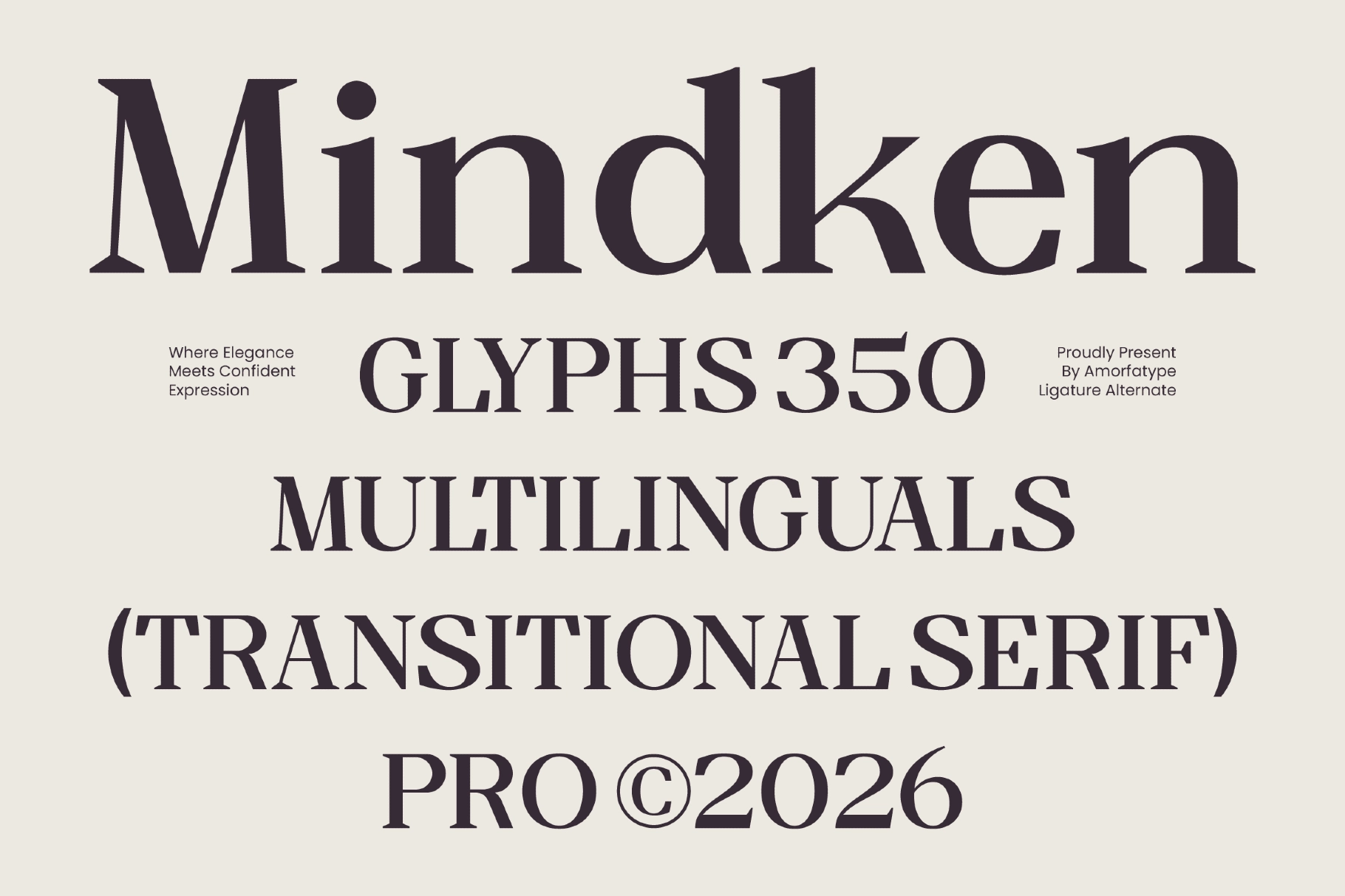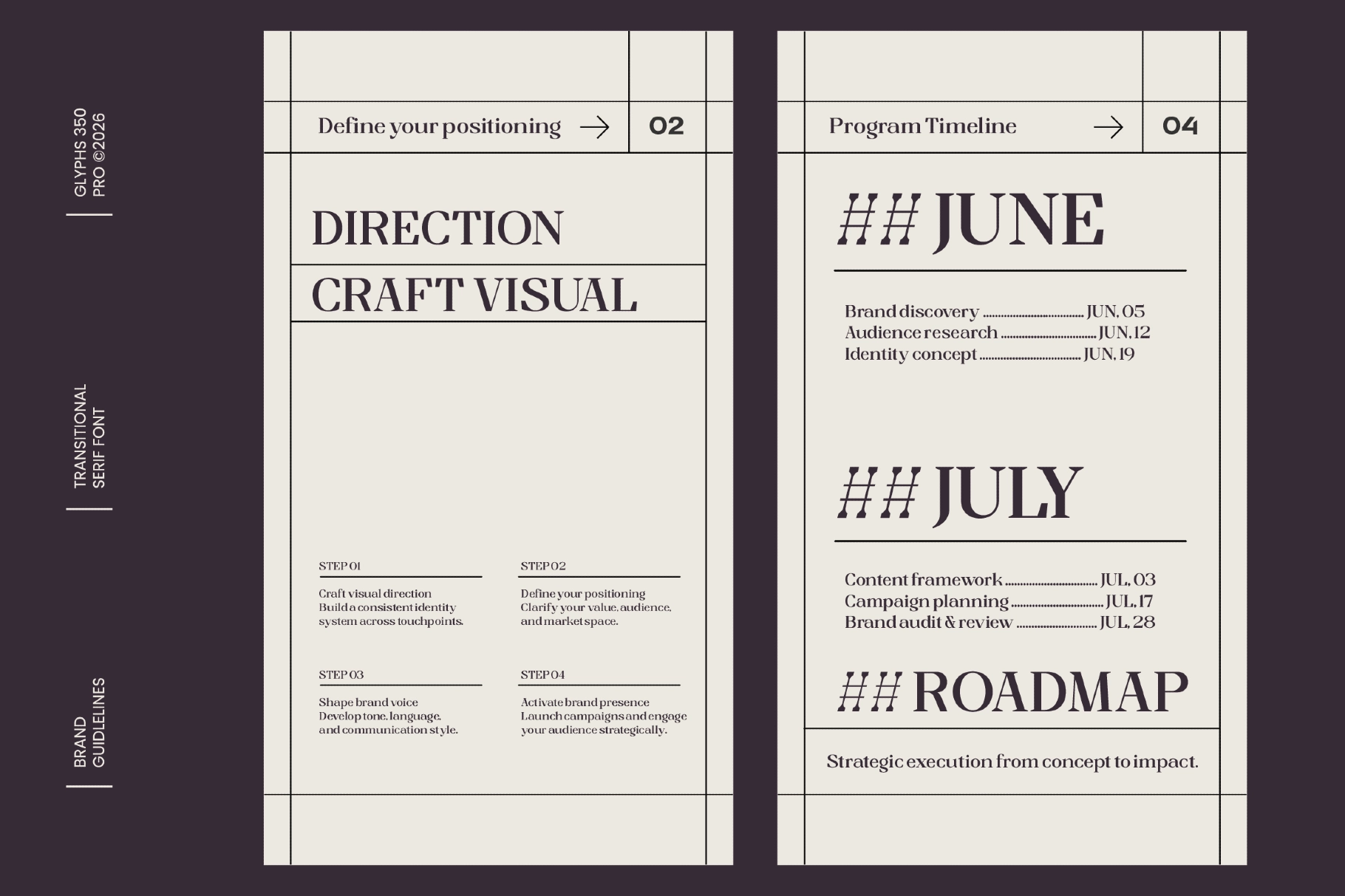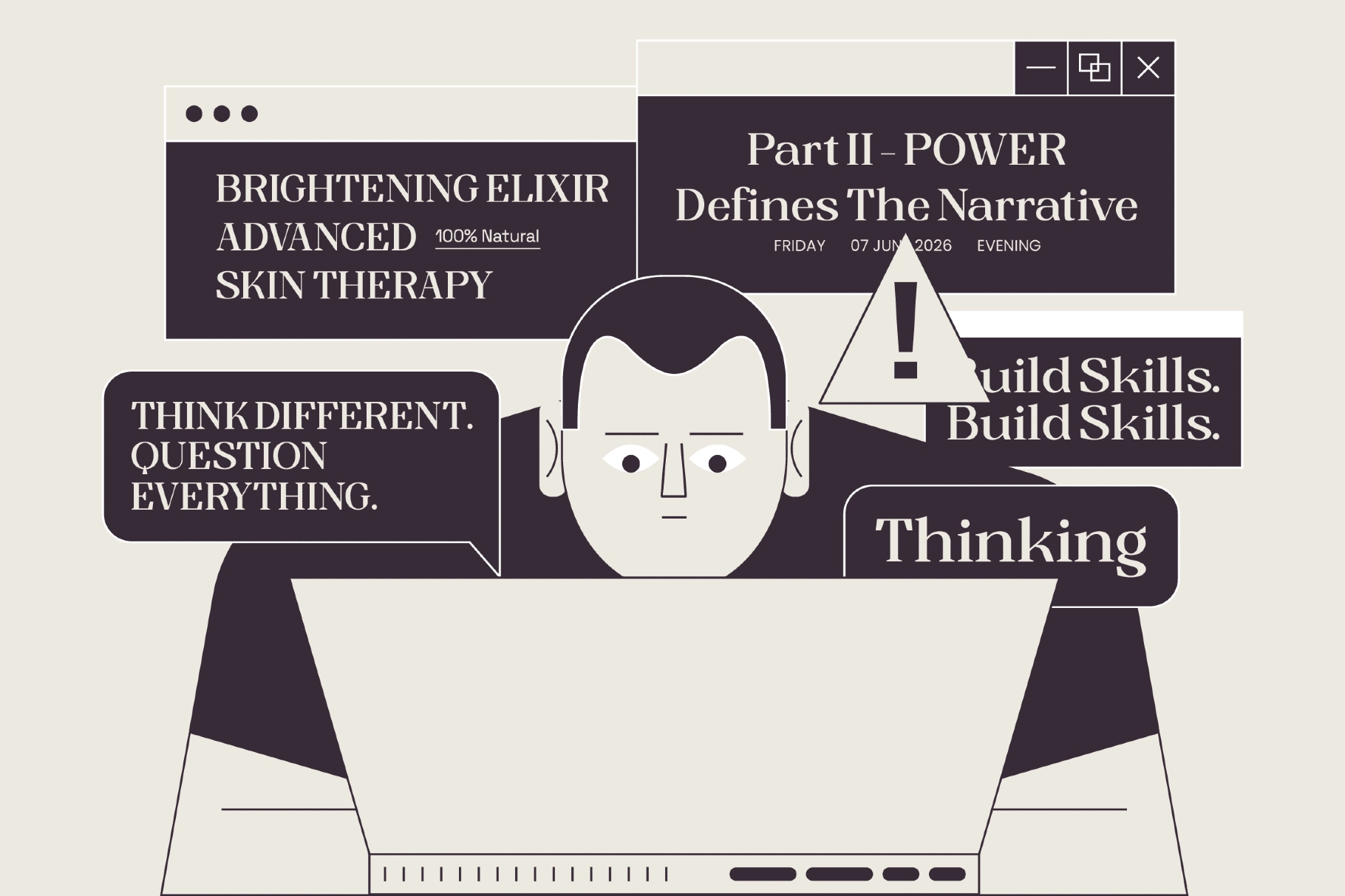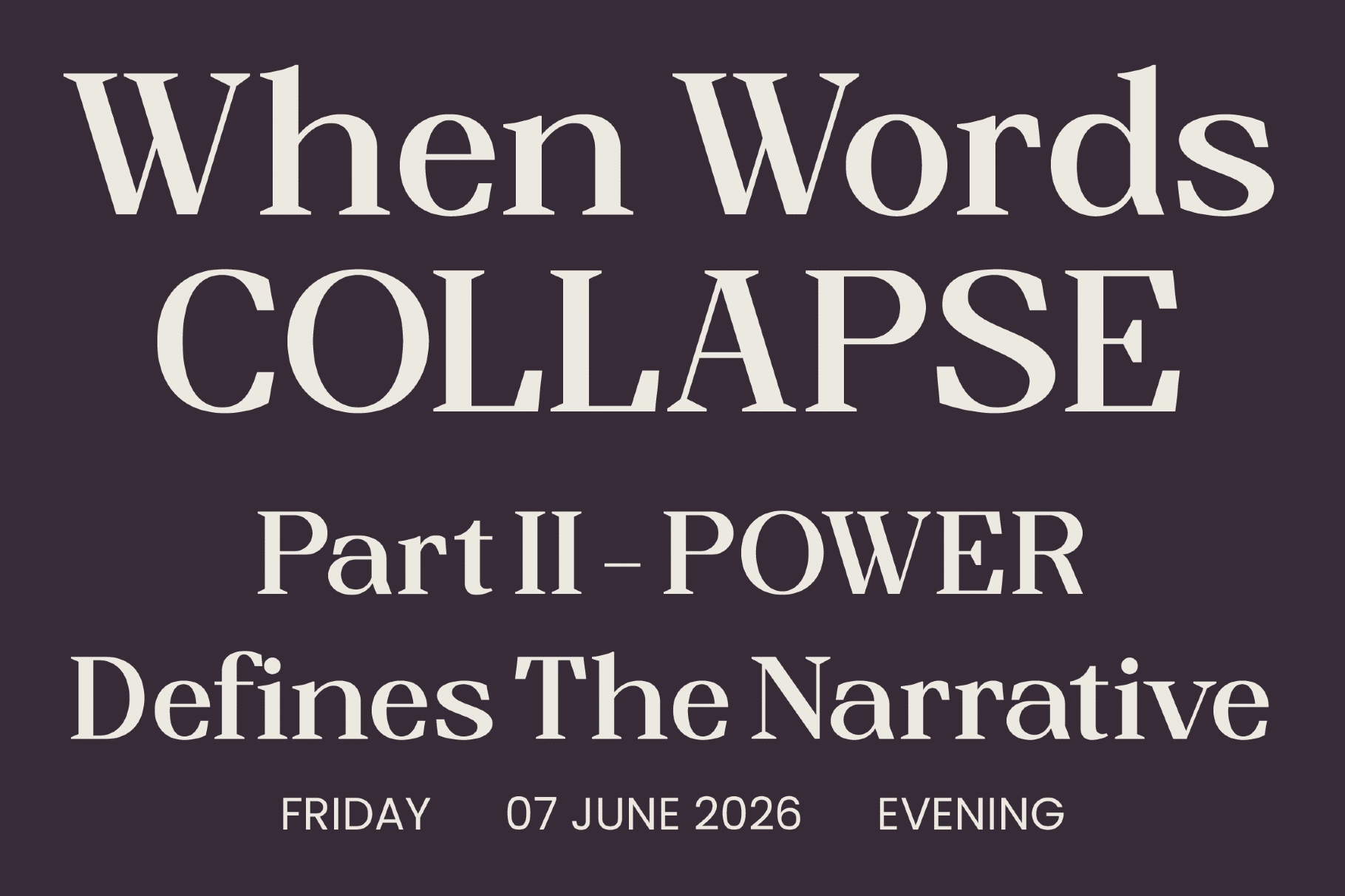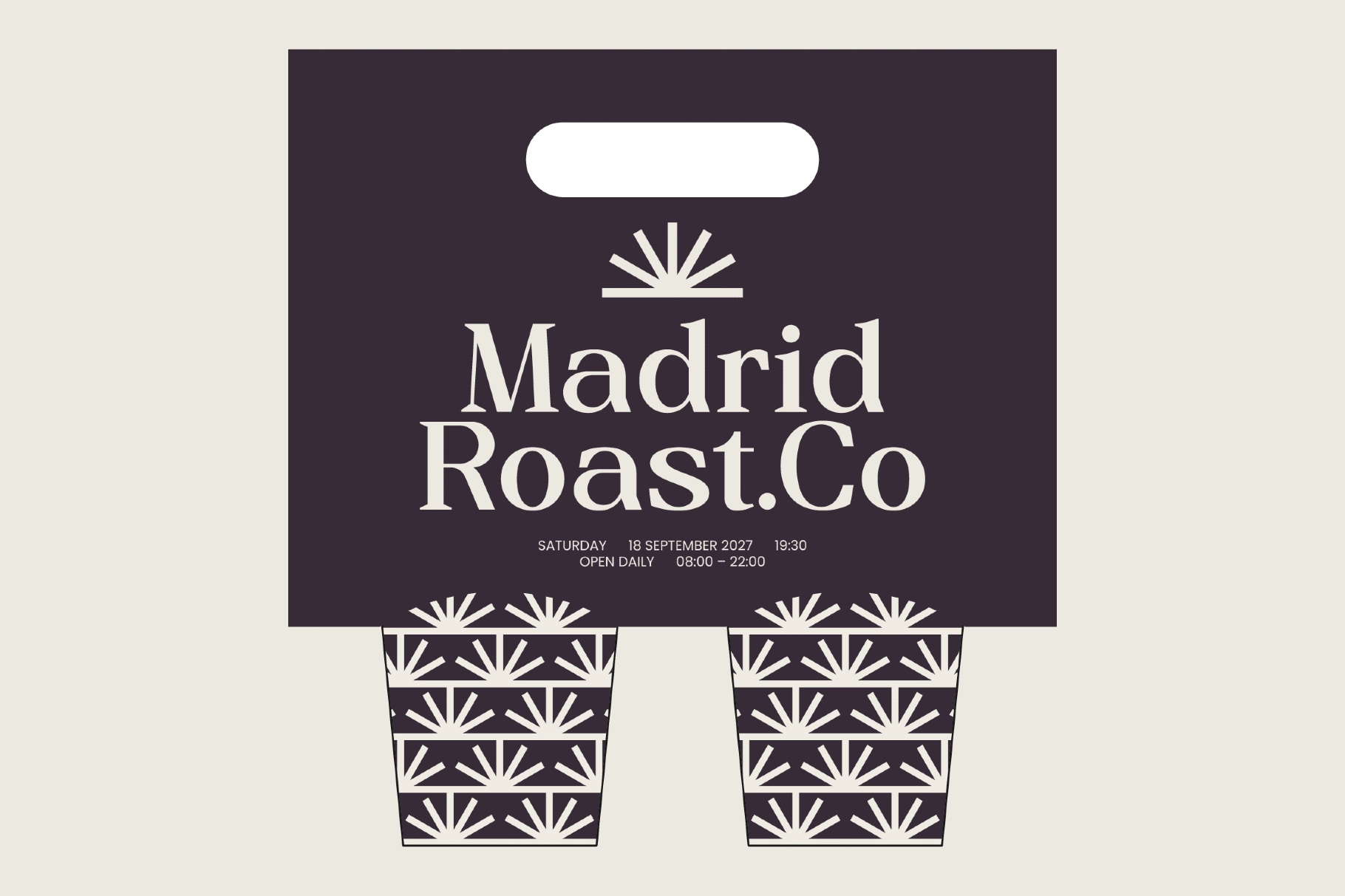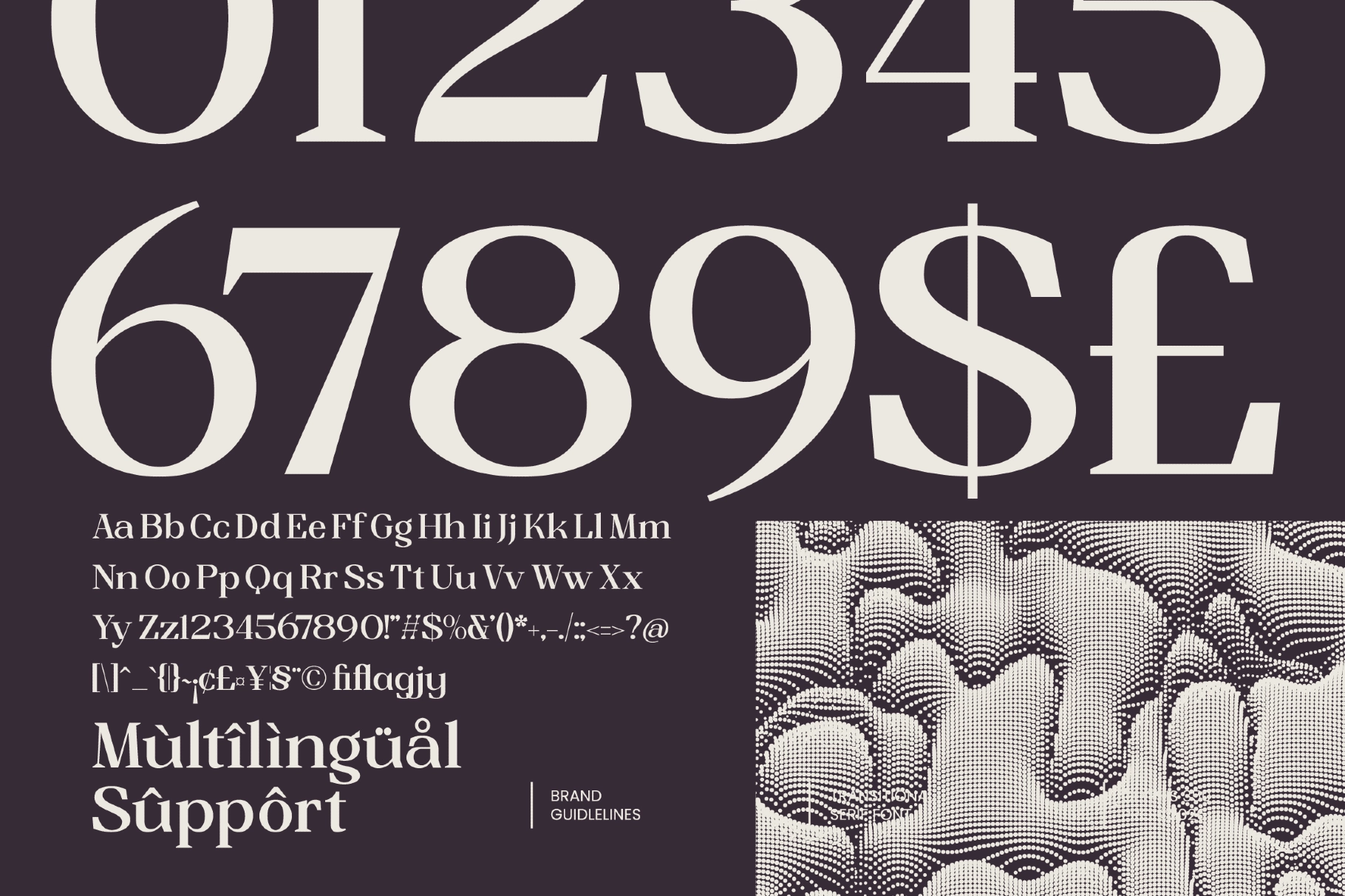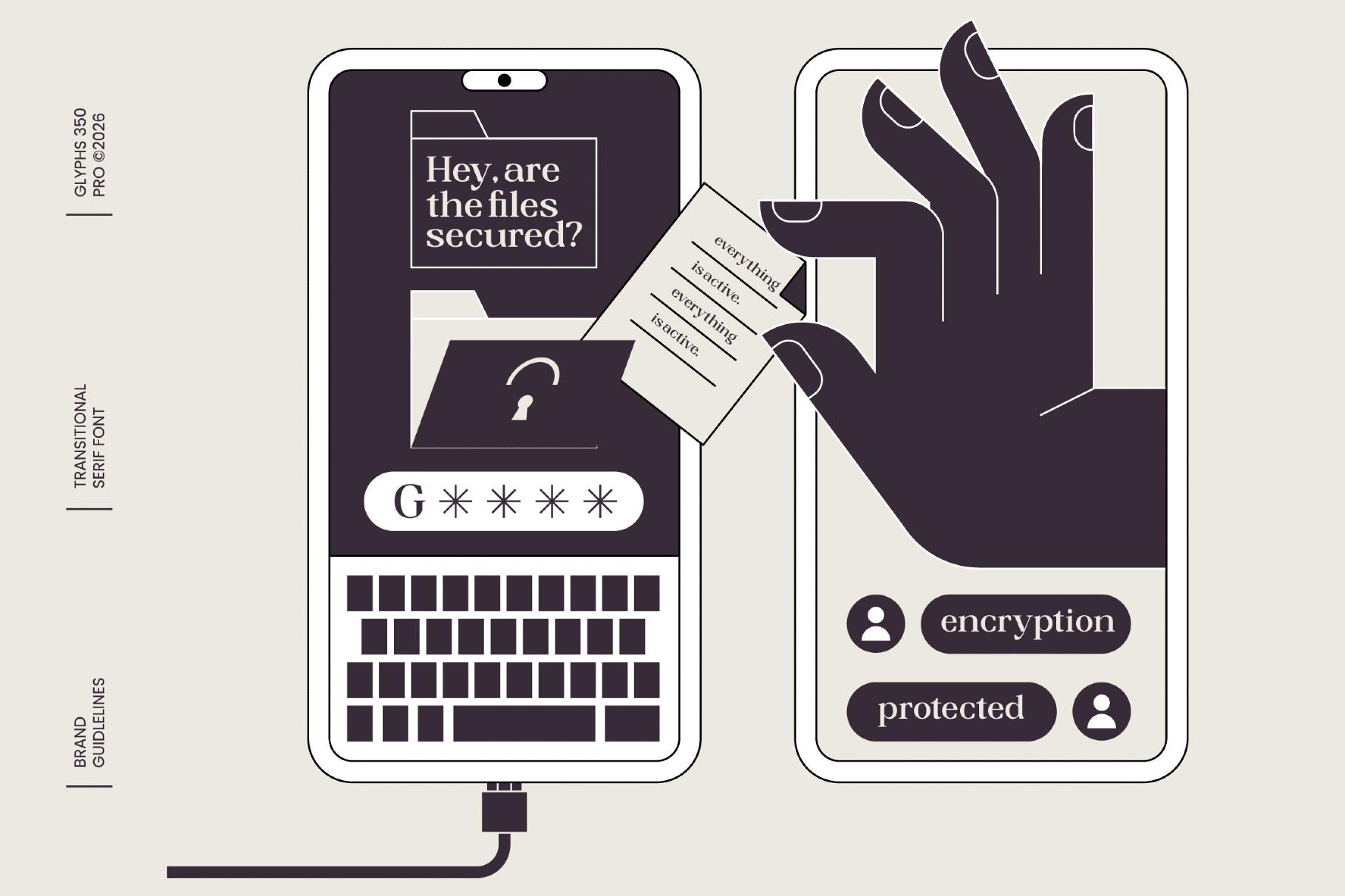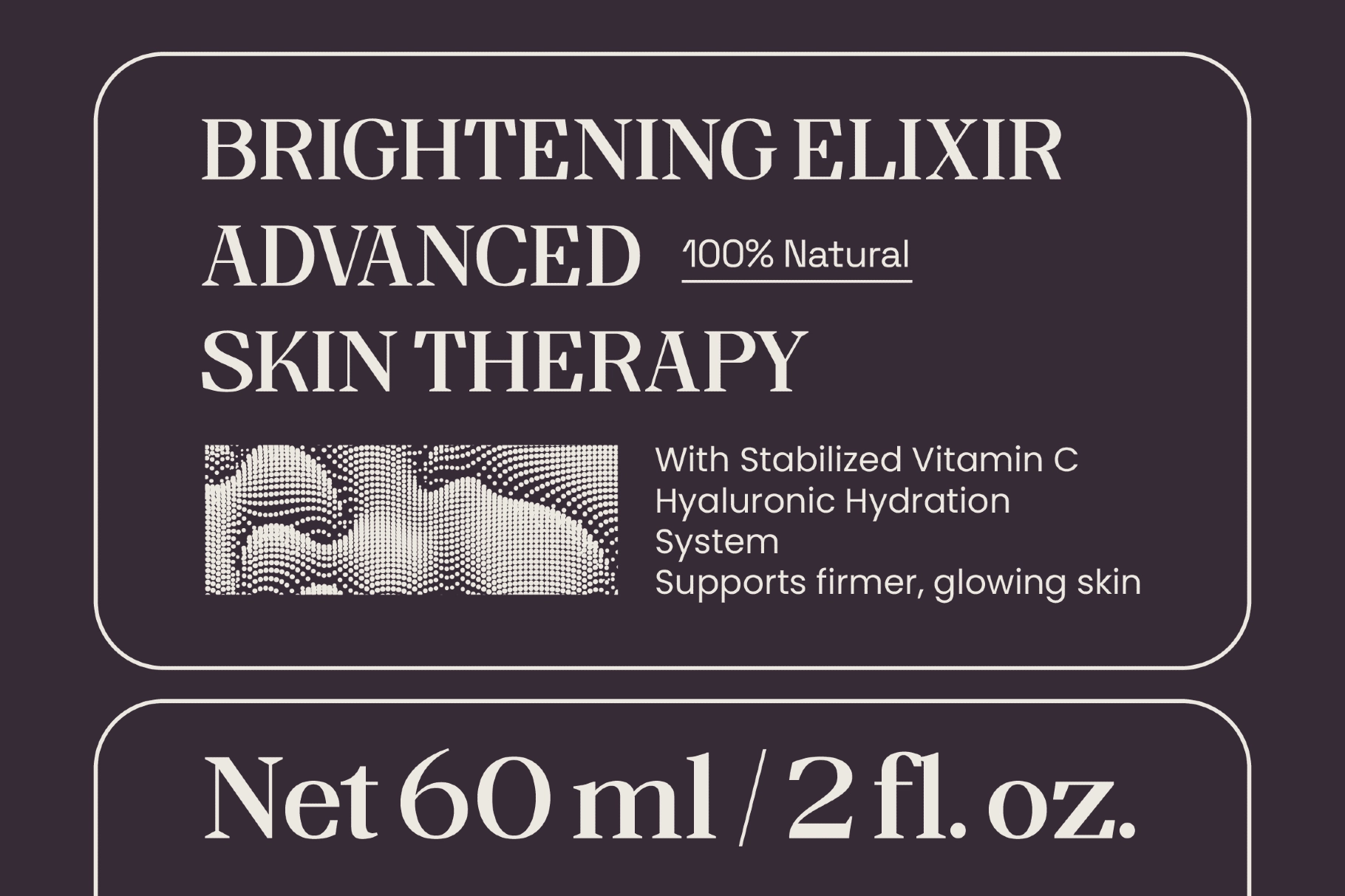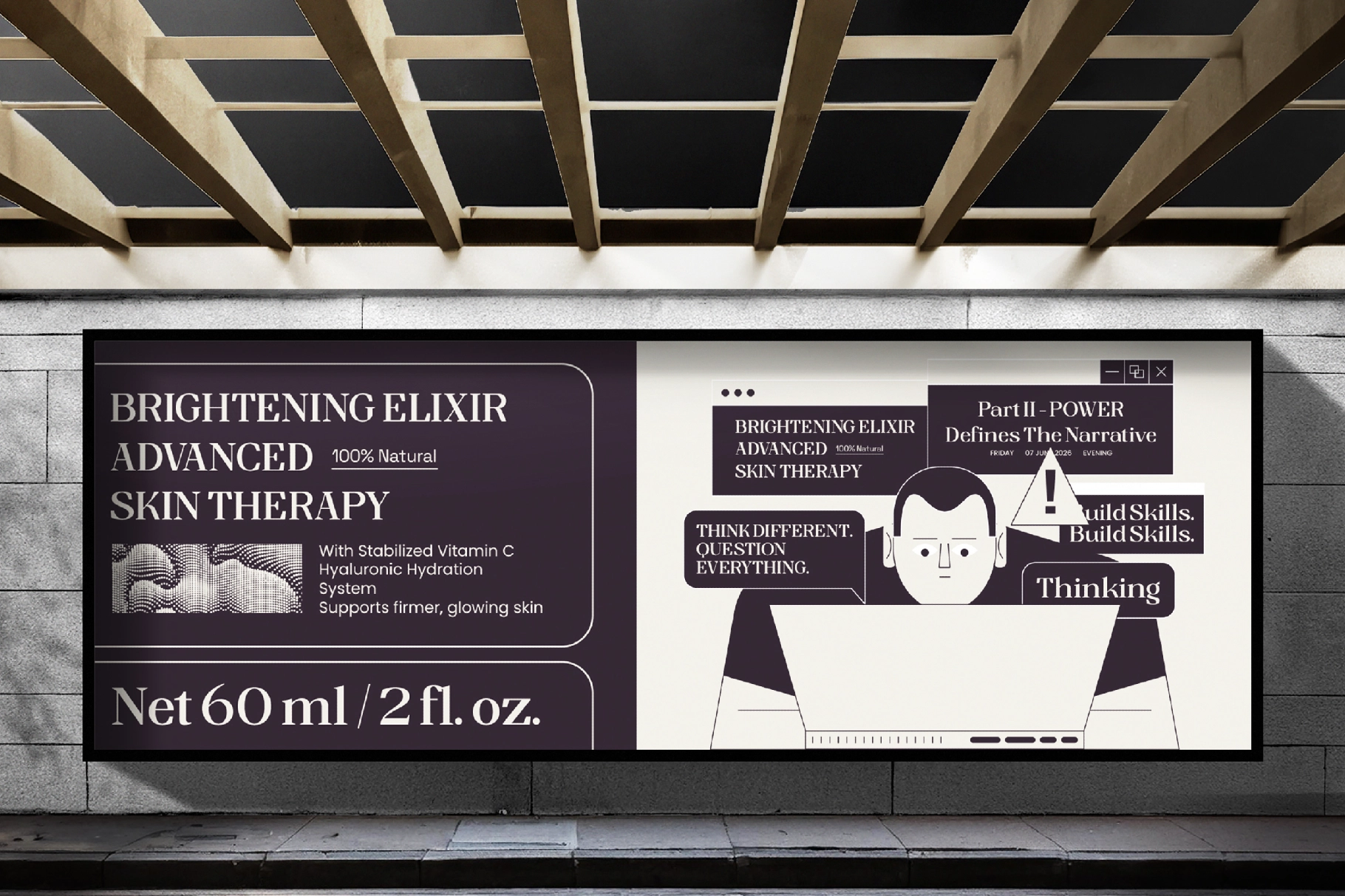
Mindken - Elegant Serif Display Font
This elegant serif font has crisp contrast, firm proportions, and sharp editorial detail. Its transitional structure gives headlines a composed, credible tone, with refined curves and confident terminals that suit premium design work.
Mindken works for luxury branding, magazine covers, book titles, fashion campaigns, skincare packaging, product labels, studio identities, event posters, website headers, social media graphics, brand guidelines, and premium logo design. The regular and italic styles give typography a clear hierarchy, while alternates and ligatures help create custom-looking wordmarks without overworking the layout.
• 2 Styles: Regular, Italic
• 350 Glyphs
• Numbers & Punctuation
• Symbols & Multilingual Support
• Alternates & Ligatures